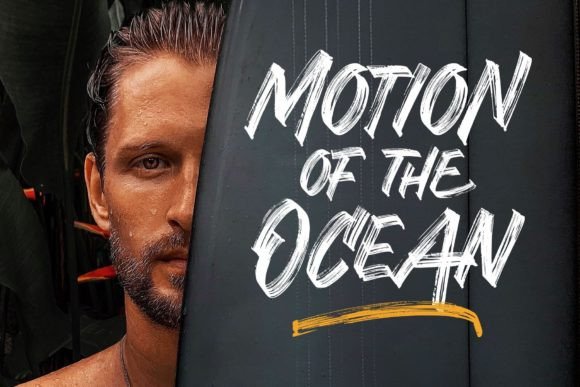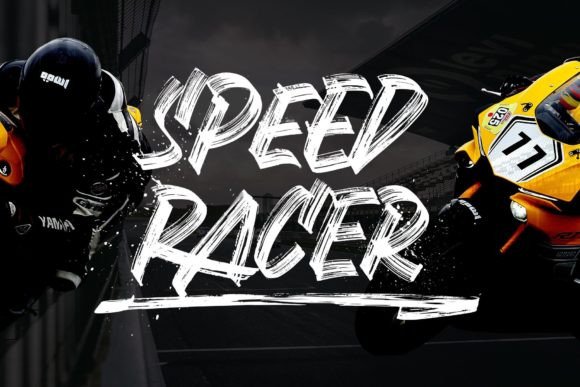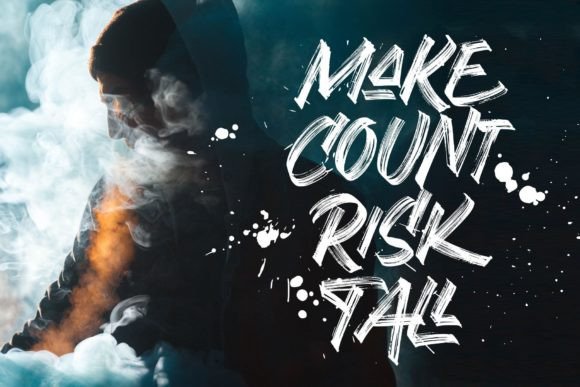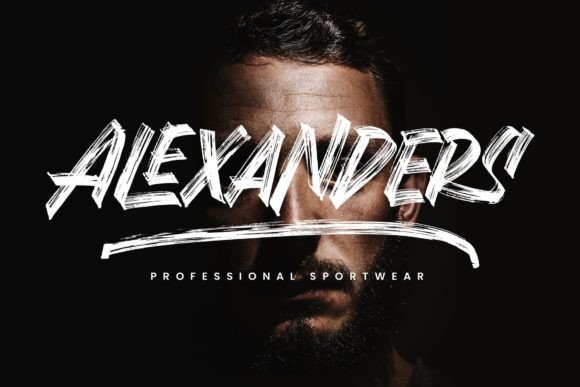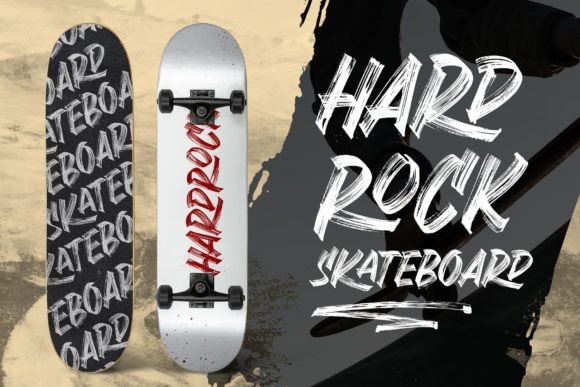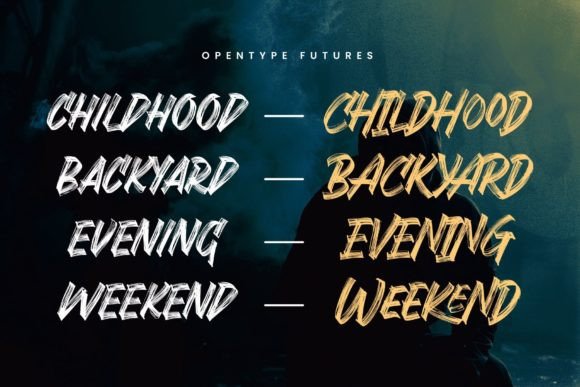
Introduction to Grashrock Font
Have you ever been in the middle of a creative project, staring at a blank page, waiting for that spark of inspiration to strike? For designers, this moment is all too familiar. But what if that spark could be ignited by a single font? Enter the Grashrock Font, a high-quality design resource that’s sure to take your designs to the next level.
With its aggressive motion and fast brush strokes, the Grashrock Font is perfect for creating dynamic, eye-catching designs. And with its PUA encoding, you’ll have access to a wide range of alternates, ligatures, and swashes to mix and match to your heart’s content. Whether you’re working on a project that requires a bold, confident font or a more subtle, creative touch, the Grashrock Font is sure to deliver.
As a valuable resource for designers, the Grashrock Font is a must-have for anyone looking to add a touch of personality to their designs. From shirts to cards, flyers to logotypes, this font is perfect for any project that requires a high-quality, free download design resource with a transparent background.
Key Features of Grashrock Font
- High-quality design resource for creative projects: Grashrock Font offers a unique and stylish font perfect for various design applications.
- Transparent background: This feature allows for seamless integration with any design element, giving you complete creative control.
- High-resolution design: With a resolution of 300 DPI, Grashrock Font is perfect for print and digital applications, ensuring crisp and clear typography.
- Unique and stylish design: Grashrock Font features a distinctive and modern design that can elevate any creative project, from logos to brochures.
- Perfect for designers and artists: Whether you’re a professional designer or an artist looking for a new design resource, Grashrock Font is an excellent choice for any creative project.
Honest Review: Grashrock Font
I recently had the chance to work with the Grashrock Font in one of my creative projects and I must say it’s a game-changer. This design resource has been a lifesaver, especially when it comes to creating visually appealing graphics with a transparent background.
Here’s what I love about the Grashrock Font: ✨ It’s incredibly versatile, making it perfect for a wide range of design applications. ✨ The font is high-quality and scalable, ensuring that it looks great whether it’s displayed on a large billboard or a small social media post. ✨ The free download option is also a major plus, as it’s a great resource for designers who are on a budget.
That being said, there are a few limitations to the Grashrock Font: ⚠️ While it’s great for digital applications, it may not be the best choice for print materials that require a high level of detail. ⚠️ Additionally, the font may not be as effective in certain color schemes, so be sure to test it out before using it in your design.
Overall, I’m really impressed with the Grashrock Font and would highly recommend it to any designer looking for a high-quality, free download option.
- High-quality and scalable
- Perfect for digital applications
- May not be suitable for print materials
- May not be effective in certain color schemes
The Grashrock Font is a free design resource ideal for creative projects requiring a unique touch. With its high-quality design and transparent background, this font is perfect for adding a touch of elegance to your work.
Tips for Getting the Most Out of Grashrock Font
To get the most out of Grashrock Font, try using it in combination with other design elements to create a unique look. Experiment with different font sizes, colors, and styles to find the perfect combination for your project.
Can I use the Grashrock Font with a transparent background?
Yes, the Grashrock Font supports transparent backgrounds, making it perfect for designing graphics with a see-through effect. To use the font with a transparent background, simply use a design application that supports transparent layers, such as Adobe Illustrator or Photoshop, and apply the font to a transparent layer.